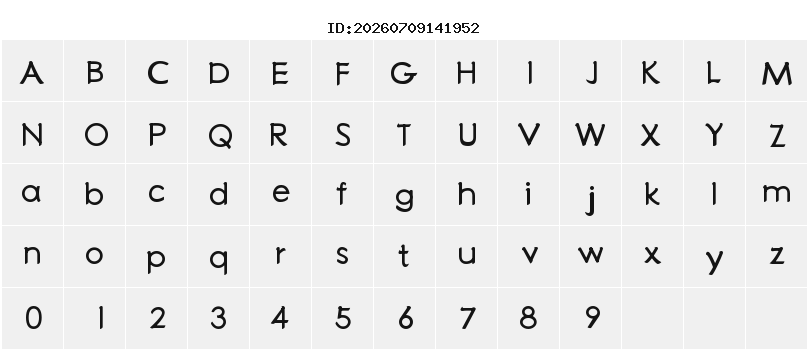
临海体 Preview
• Font Name: 临海体
• Character Count: 9311
About 临海体.ttf
临海体.ttf is a modern, elegant sans-serif font designed for ultimate readability and visual harmony. Perfect for branding, headlines, web design, and print materials.